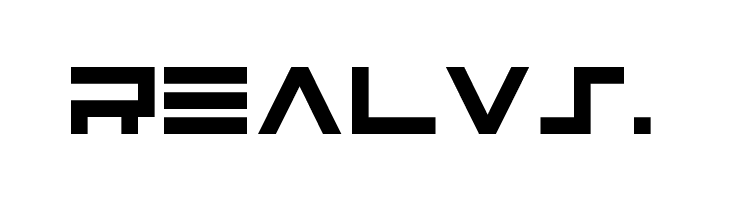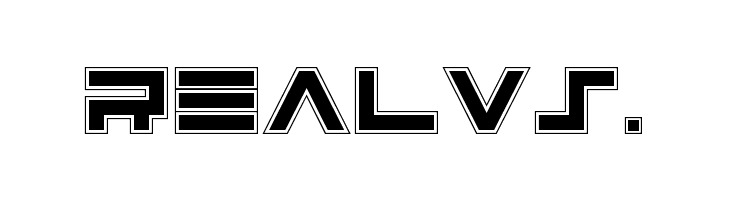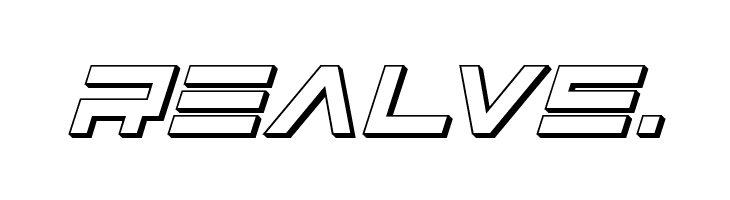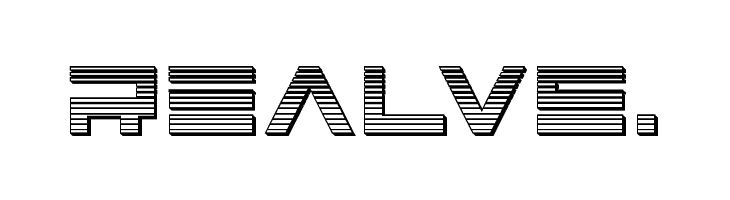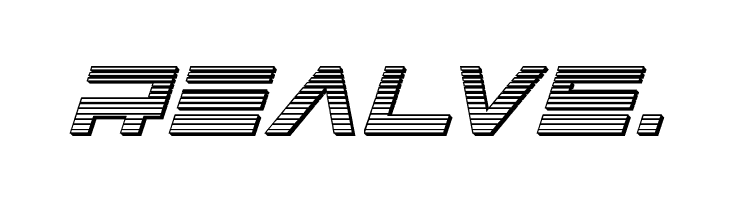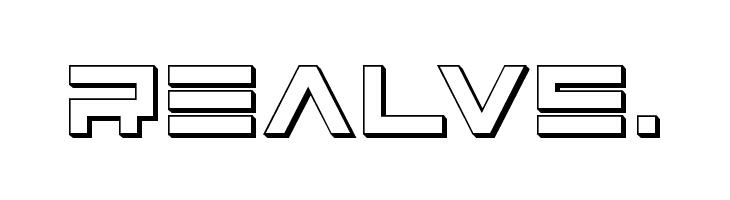
( Fonts by Fontry - M.G. Adkins - Personal-use only. For commercial use please contact owner. )
A bold, italicized typeface with a dynamic and heroic style.
( Fontry - M.G. Adkins - www.thefontry.com/ )
A bold, italicized font with a dynamic and heroic style.
( Fonts by Fontry - M.G. Adkins - Personal-use only. For commercial use please contact owner. )
A bold, italicized font with a dynamic and futuristic style.
( Fontry - M.G. Adkins - www.thefontry.com/ )
A bold, dynamic font with sharp angles and a superhero-inspired style.
( Fonts by Fontry - M.G. Adkins - Personal-use only. For commercial use please contact owner. )
A bold, angular font with a dynamic and futuristic style.
A bold, italicized font with strong, dynamic letterforms and a modern, impactful style.
( Fonts by Fontry - M.G. Adkins - Personal-use only. For commercial use please contact owner. )
A bold, slanted font with a dynamic and powerful style.
A bold, modern font with a slightly condensed style and strong lines.
A bold, geometric font with a futuristic and industrial style.
A bold, geometric font with a futuristic, digital aesthetic.
A bold, geometric, 3D font with a futuristic and tech-inspired design.
A bold, 3D italic font with a futuristic and dynamic style.
A futuristic, geometric font with bold, multi-line strokes and a chrome-like appearance.
A futuristic, italicized font with a chrome-like, layered design.
A bold, geometric font with angular shapes and a futuristic style.